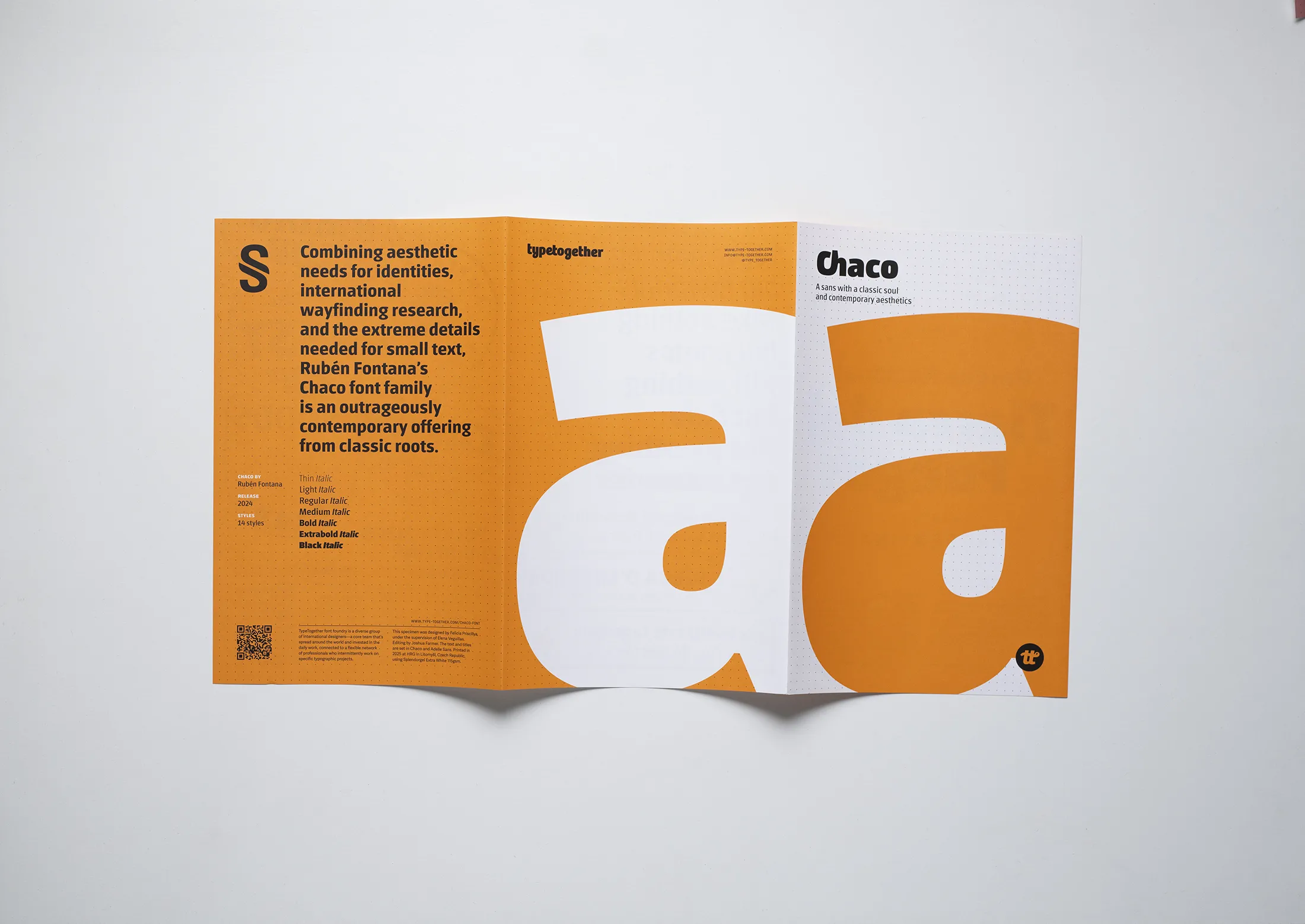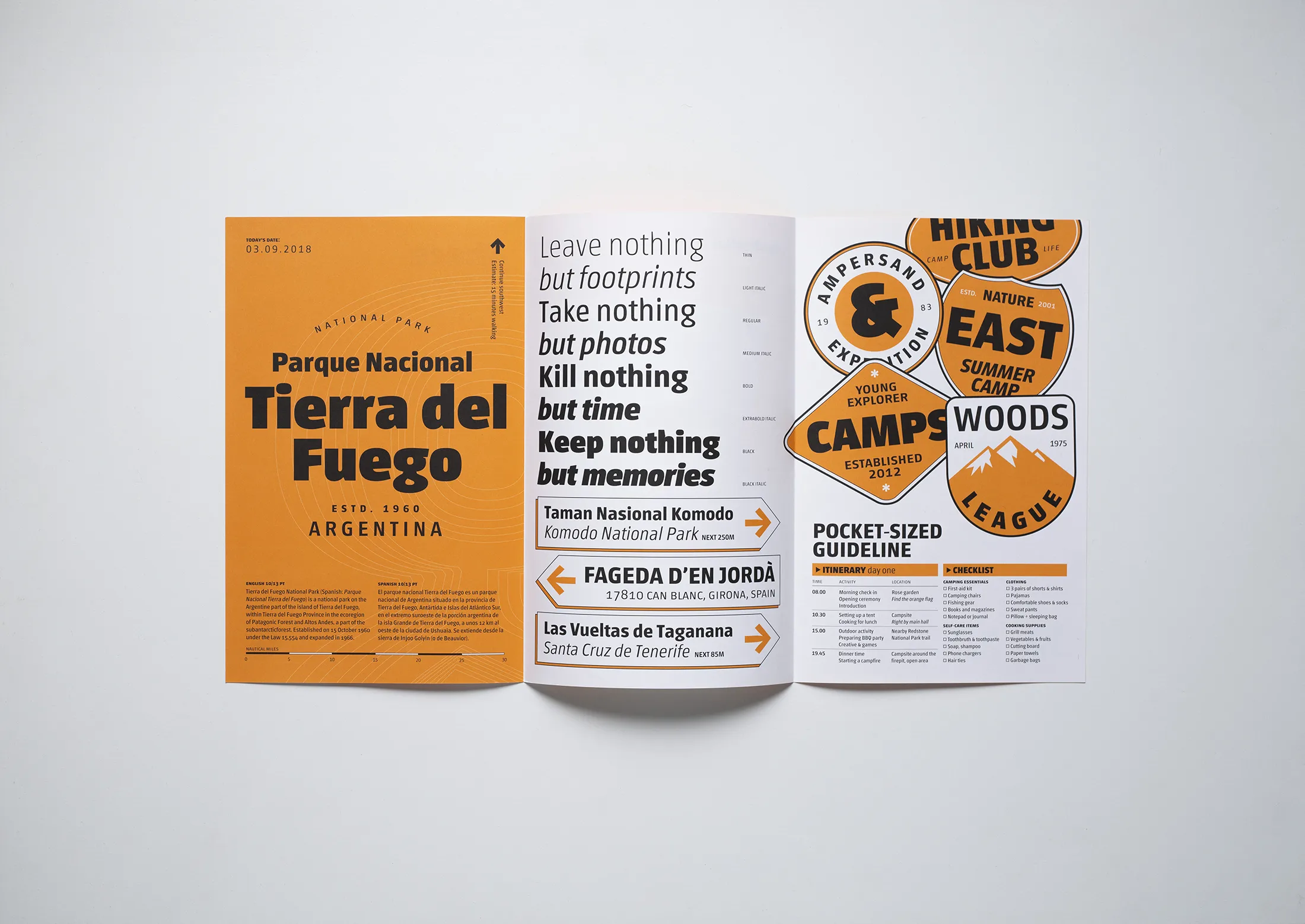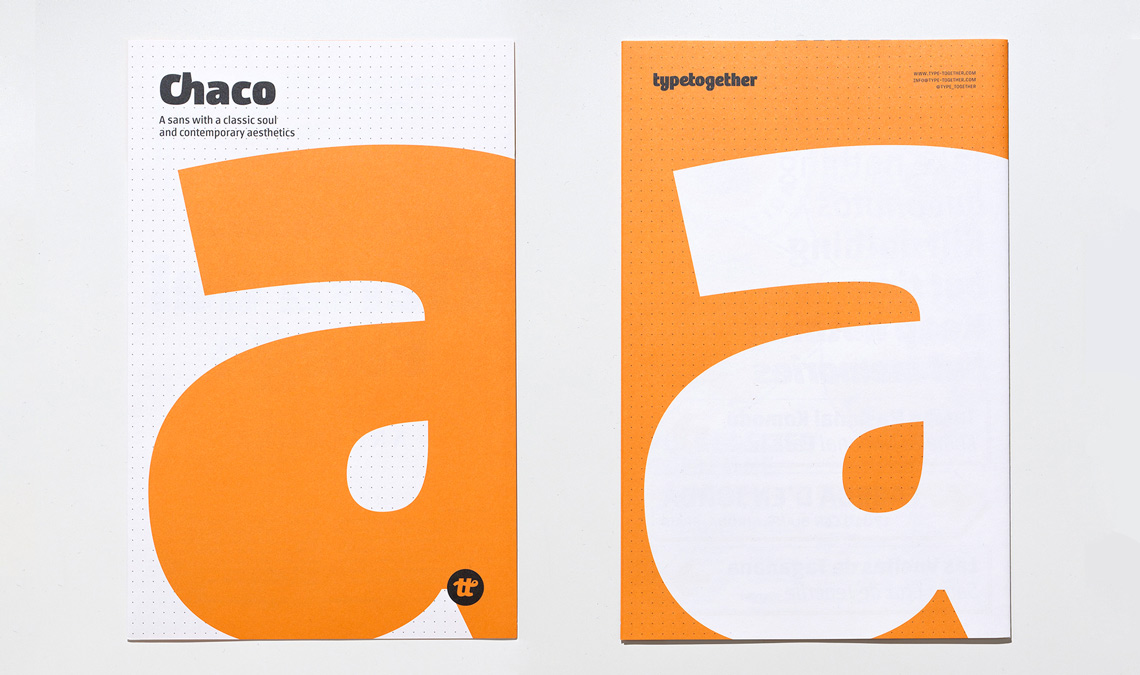
Chaco specimen
To mark the release of Rubén Fontana’s Chaco font family — an outrageously contemporary offering from classic roots — our talented graphic designer Felicia Priscillya designed this specimen, under the supervision of Elena Veguillas, now available in our store. Chaco is a pitch-perfect typeface for identity and branding work, wayfinding, and composing immersive reading texts. Just cover the shipping/handling and the poster is yours for free.
The specimen folds out to 54×28 cm and has been printed by H.R.G. (Czech Republic) on Splendorgel Extra White 115 gsm.